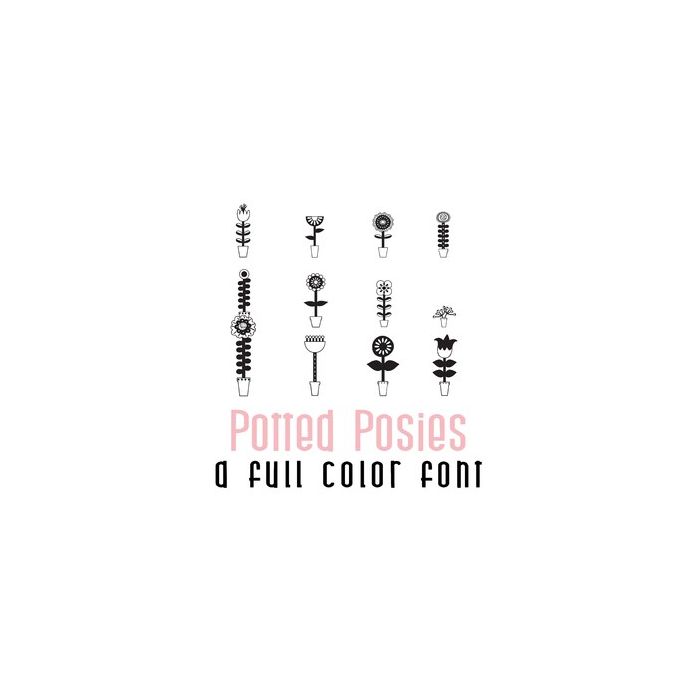
This adorable doodlebat font features 26 beautiful potted flowers. Perfect for cards, crafts, gifts, decor, scrapbook pages, planner stickers, and more!